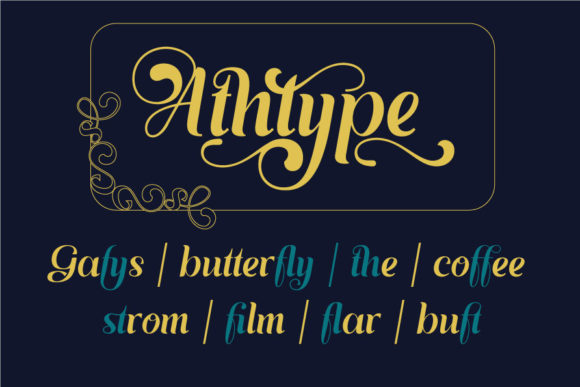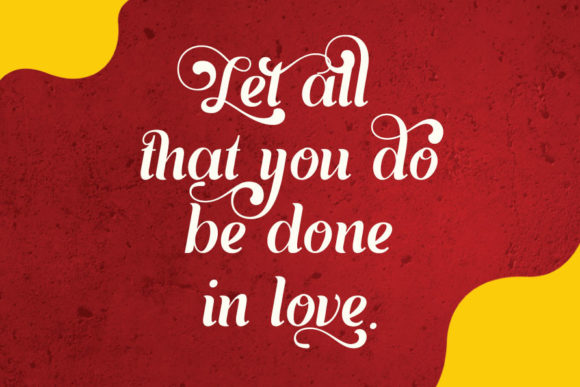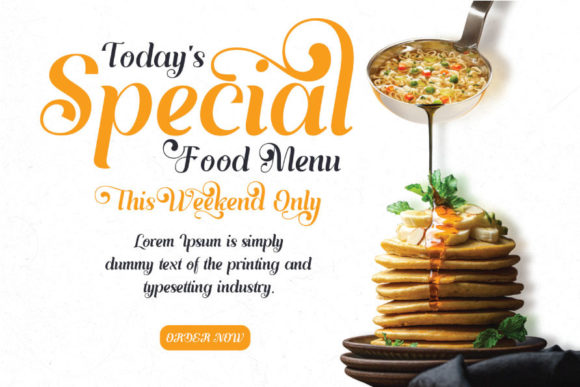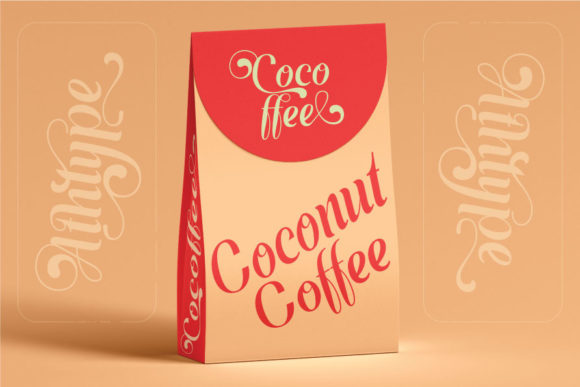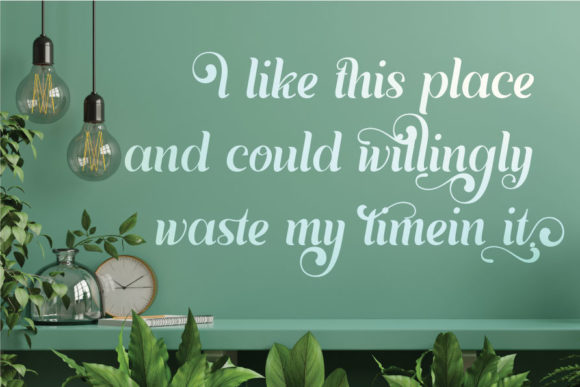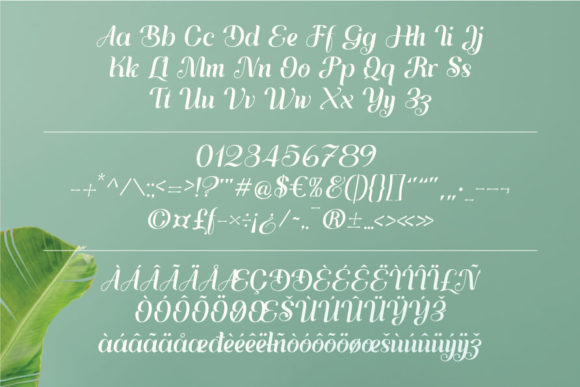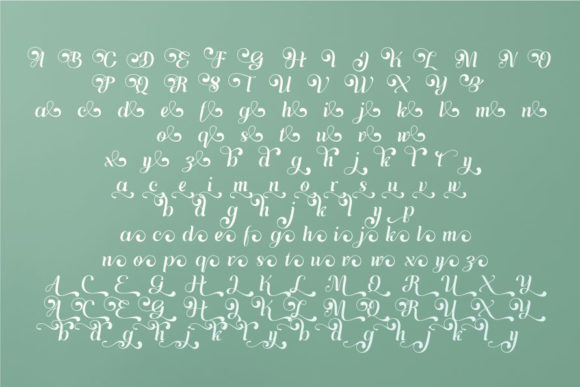
About Ayulia Molga Font
Ayulia Molga is an exquisite script font. This font is neatly crafted and highly detailed. Whatever the topic, this font will be a wonderful asset to your font library, as it has the potential to enhance any creation.